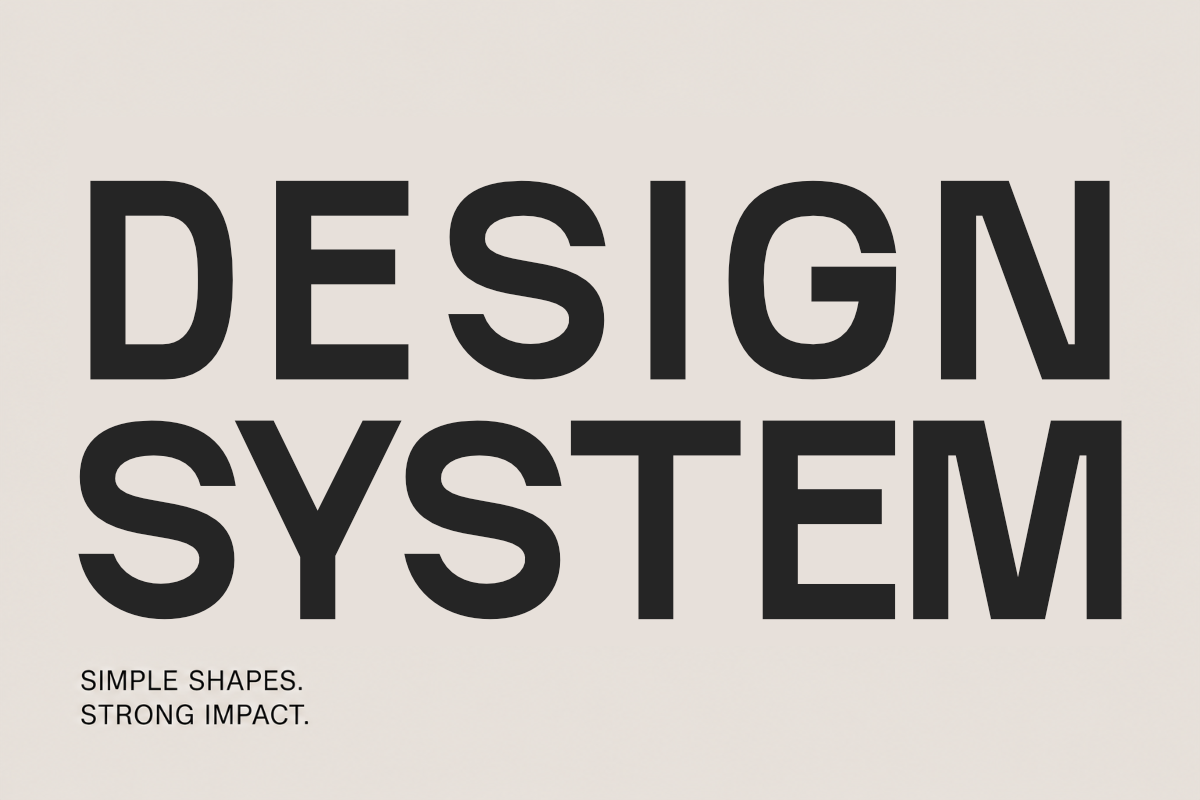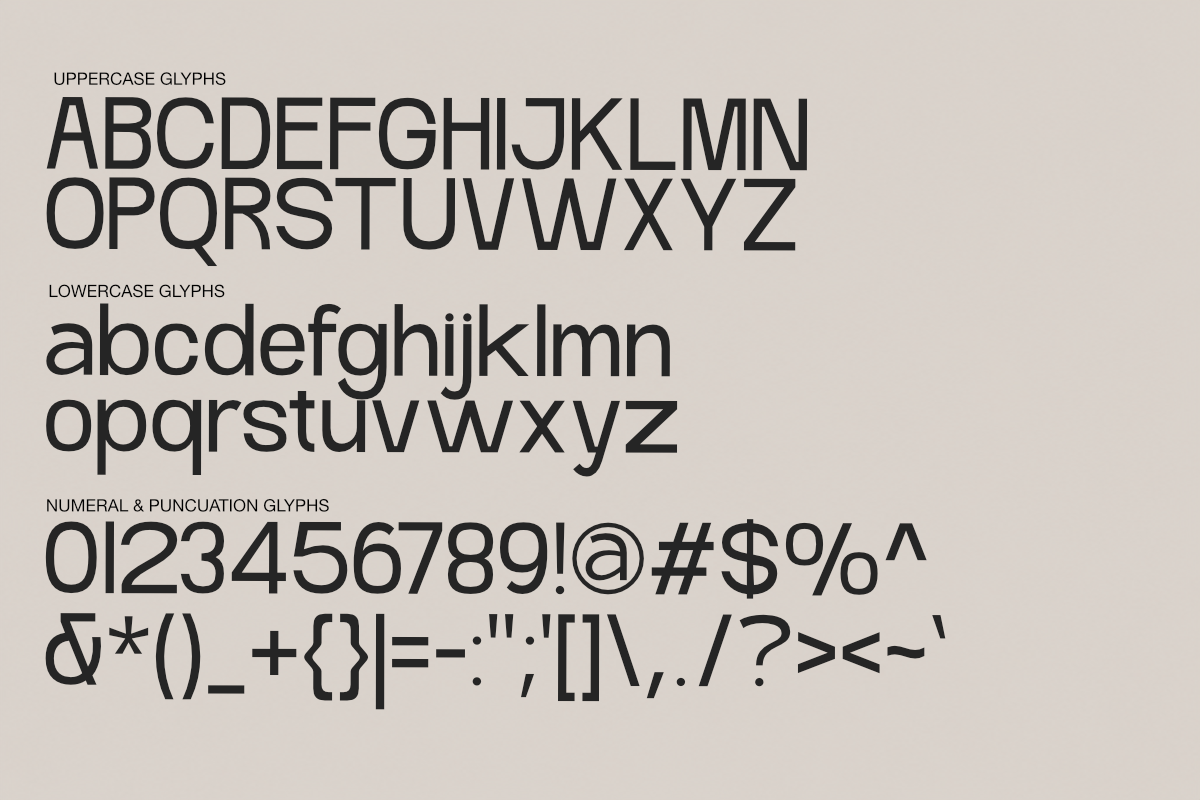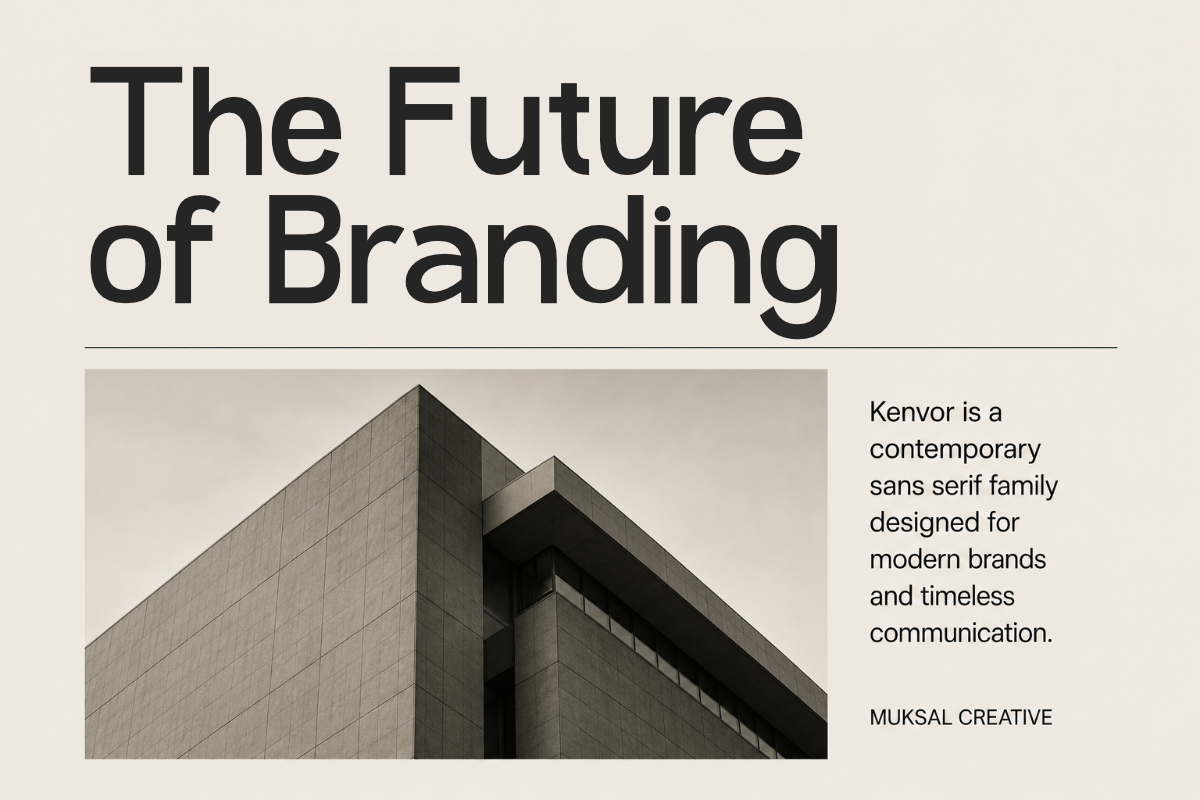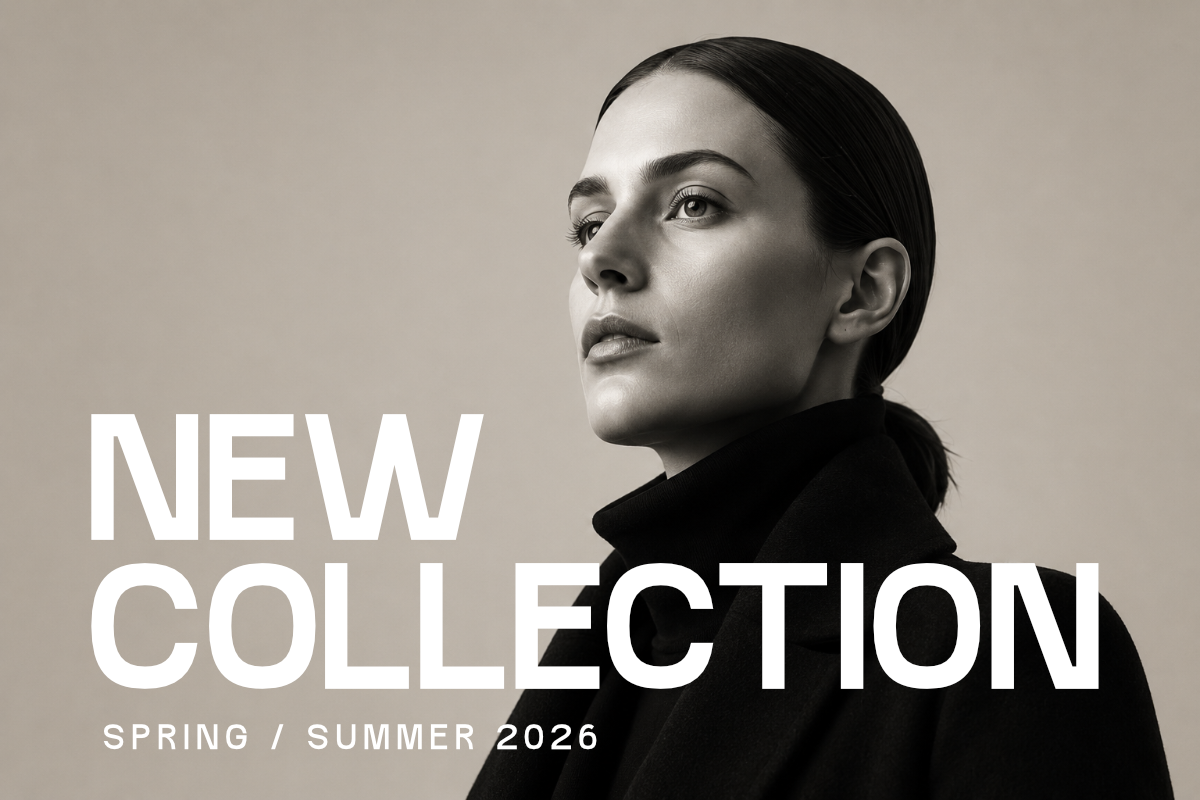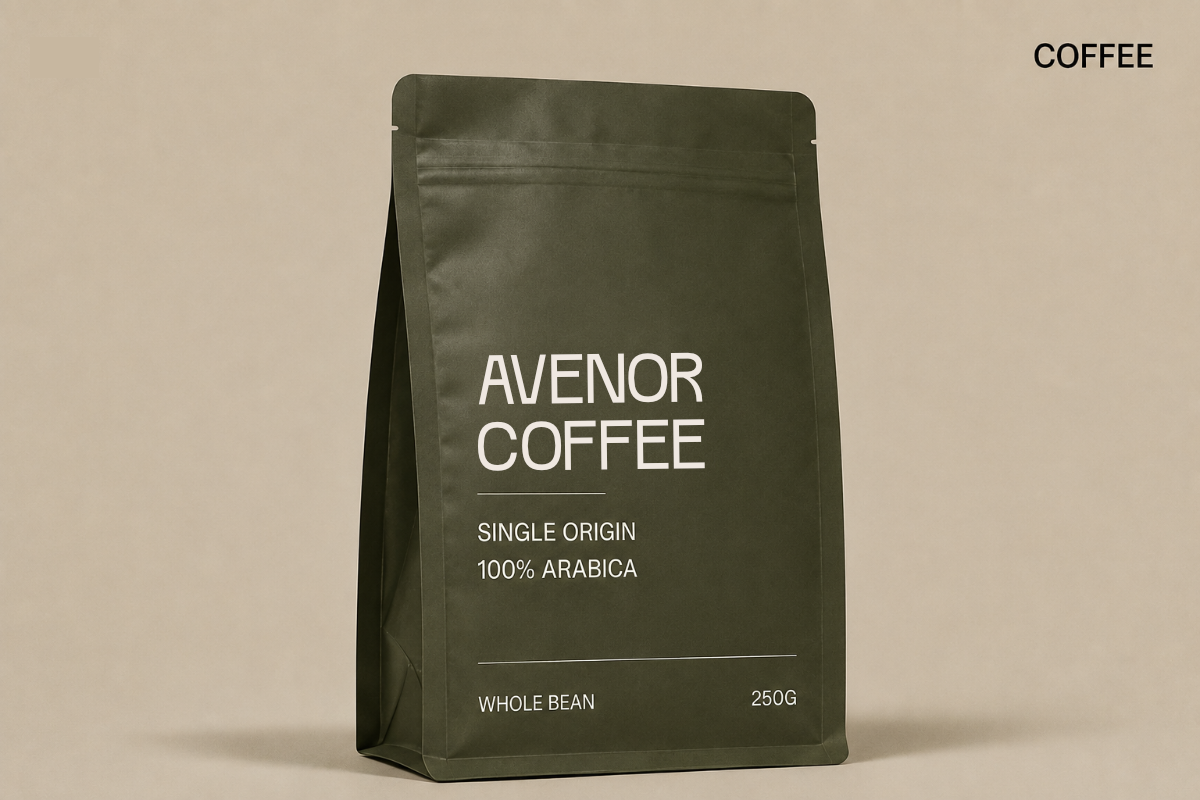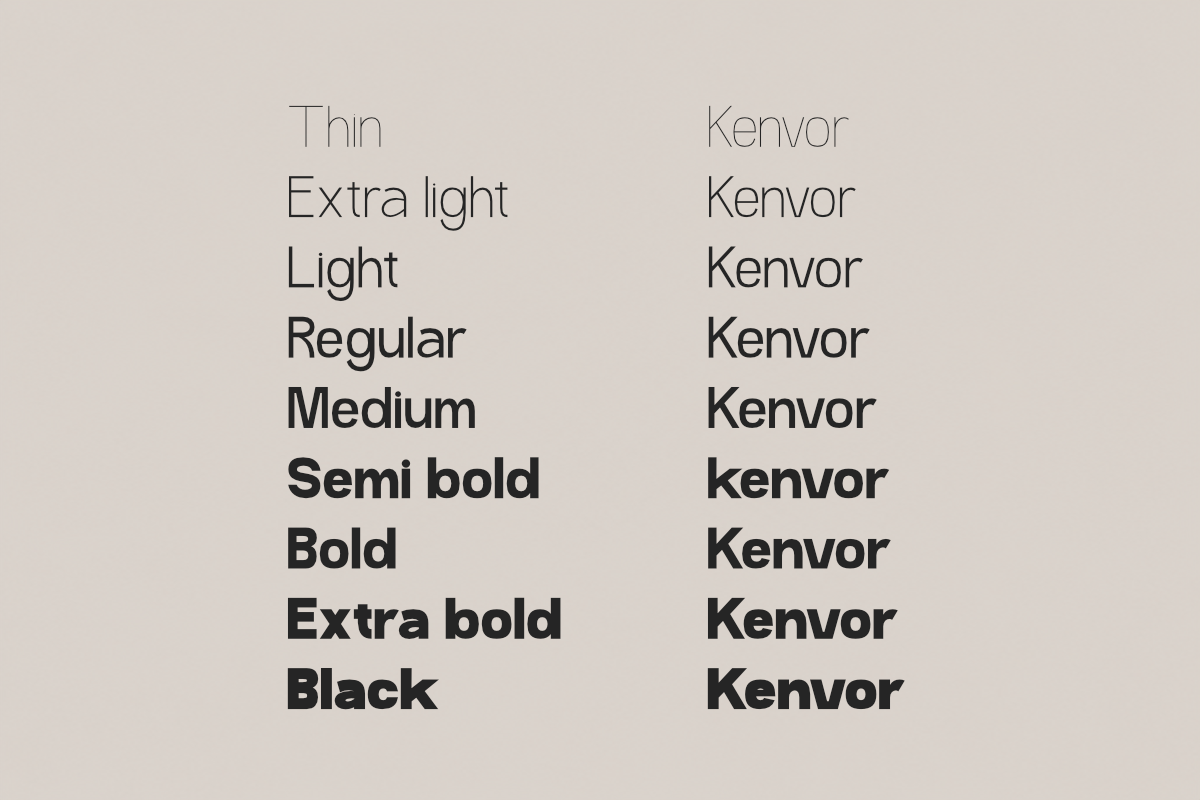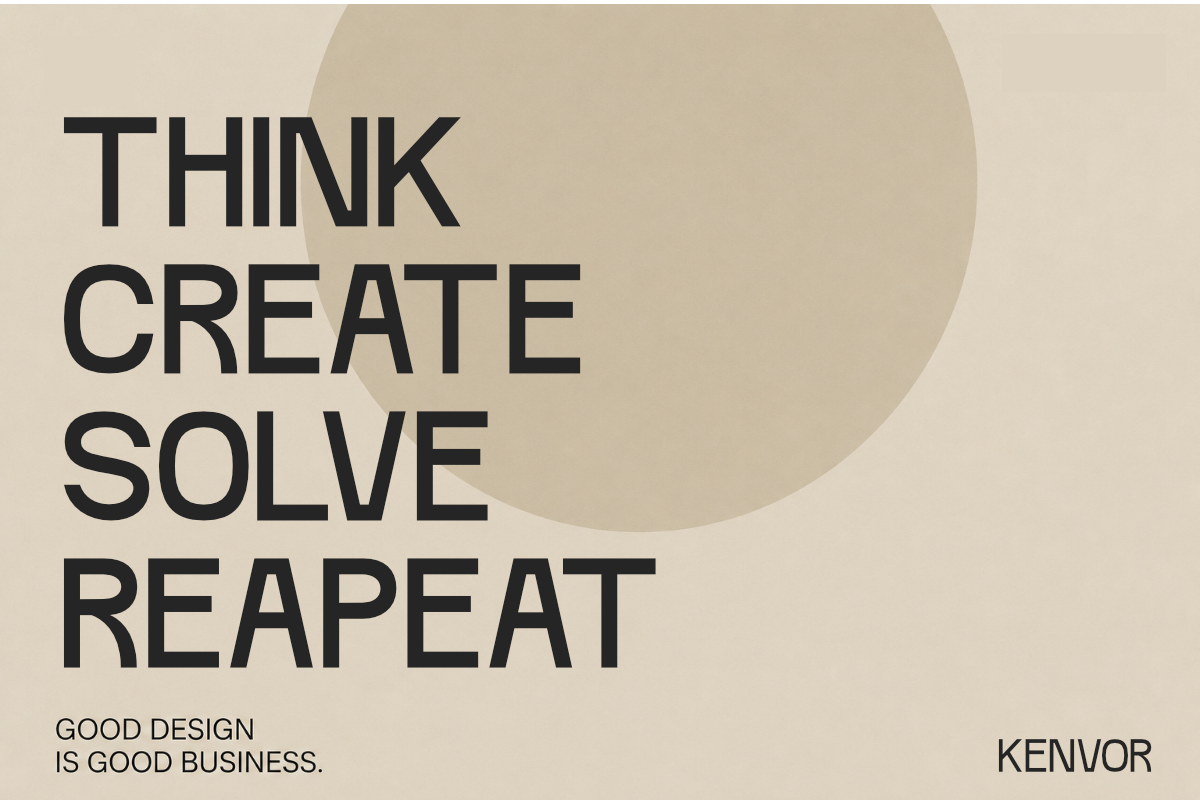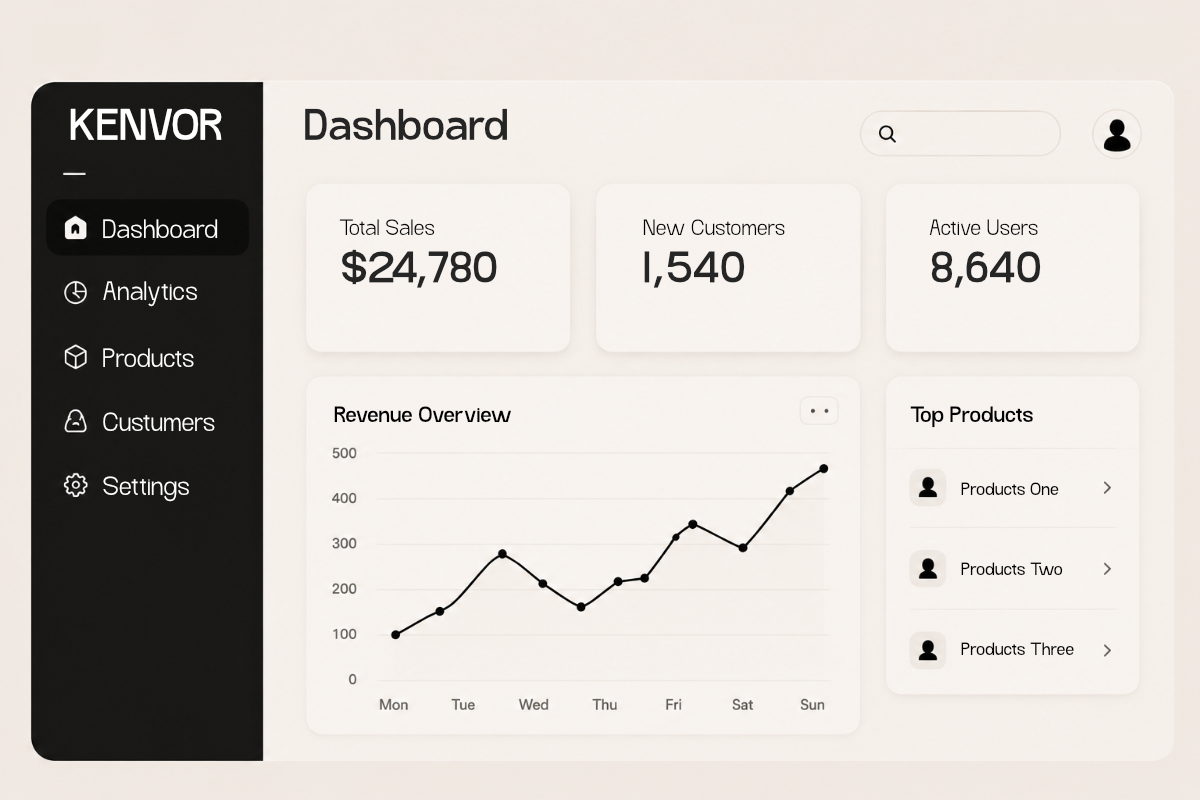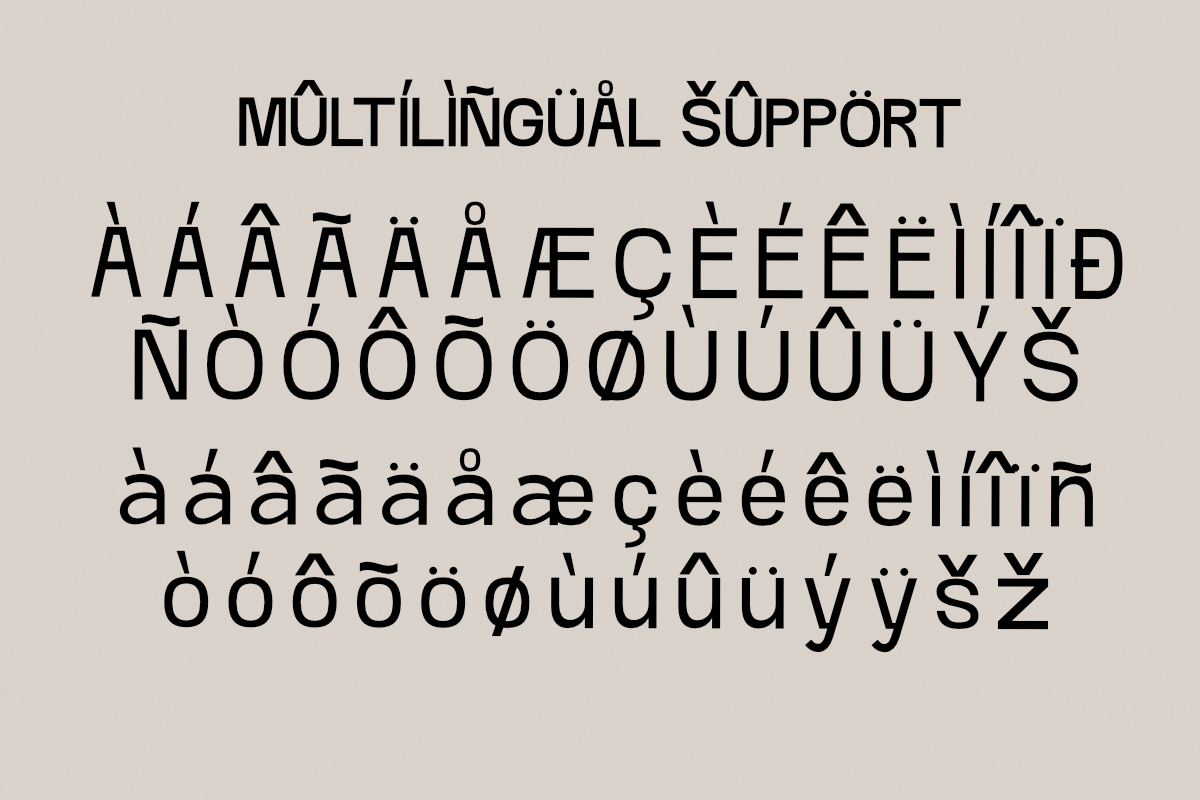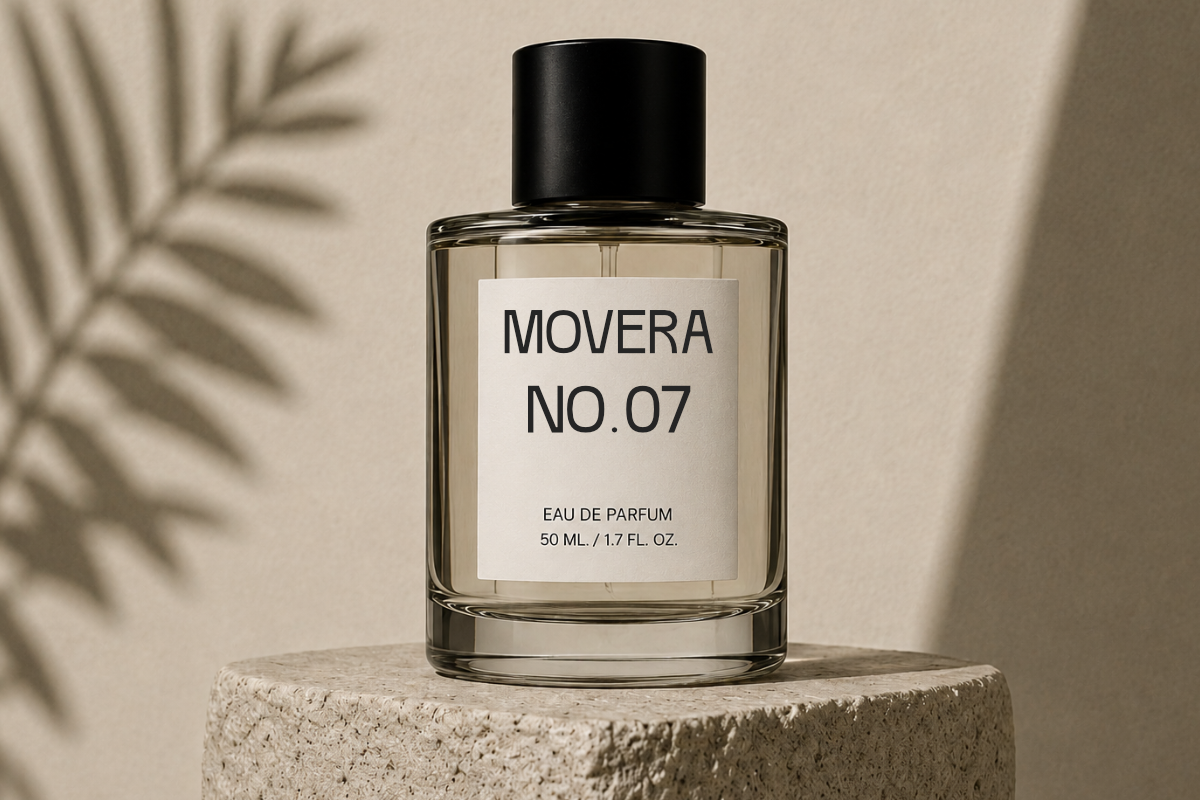
Kenvor Contemporary Sans Serif
Kenvor is a contemporary geometric sans serif typeface designed with clean proportions, refined details, and exceptional versatility. Built to deliver clarity and confidence, Kenvor combines minimalist aesthetics with outstanding readability, making it an excellent choice for modern branding, editorial layouts, digital interfaces, corporate identities, and premium packaging.
Featuring 9 carefully crafted weights, from Thin to Black, Kenvor adapts effortlessly to a wide range of creative applications. Whether you're creating bold headlines, elegant magazine layouts, sophisticated logos, or intuitive UI designs, Kenvor offers a balanced and timeless visual language that feels both professional and contemporary.
Its neutral yet distinctive personality makes it suitable for fashion, architecture, technology, beauty, lifestyle, and luxury brands seeking a clean and modern typographic identity.
Branding & Visual Identity
Editorial & Magazine Layouts
User Interface (UI/UX)
Corporate Design
Fashion Branding
Beauty & Cosmetic Brands
Technology Startups
Advertising
Presentation Design
Websites
Signage
9 Weights (Thin – Black)
Clean Geometric Design
Contemporary Sans Serif
High Readability
Perfect for Print & Digital